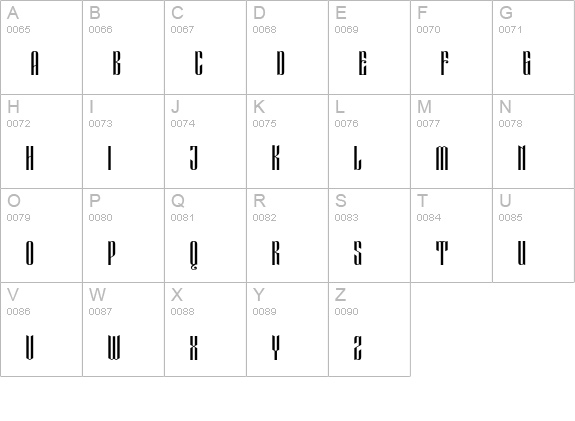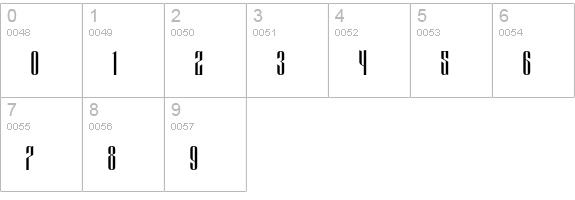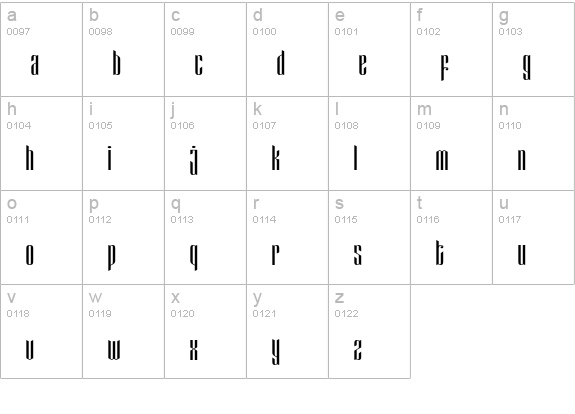
Eveagita Luxury Font Details
Eveagita Luxury font is a stunning display typeface that exudes elegance and sophistication. With its intricate details and graceful curves, this font is perfect for adding a touch of luxury to your designs. The font features ornate elements and stylish flourishes that make it ideal for high-end branding, invitations, and editorial projects. What sets Eveagita Luxury font apart is its versatility – it can be used for both formal and creative designs, making it a must-have in any designer's toolkit. Whether you're creating wedding invitations, luxury packaging, or fashion editorials, Eveagita Luxury font will elevate your projects to new heights. And the best part? Eveagita Luxury font is available for free download at FontsMarket.com. So go ahead and add this exquisite font to your collection today and watch your designs come to life with a touch of luxury.